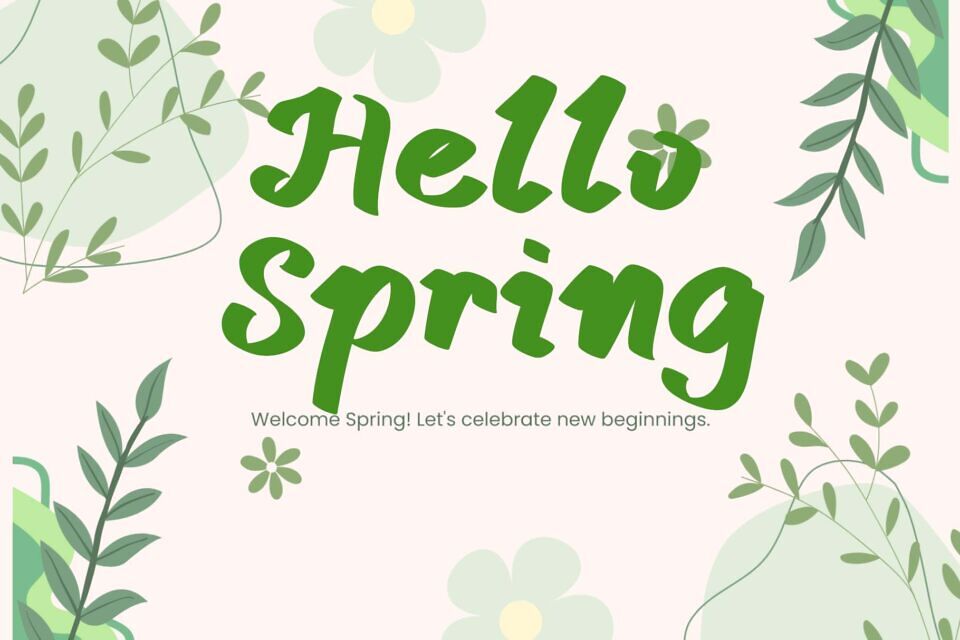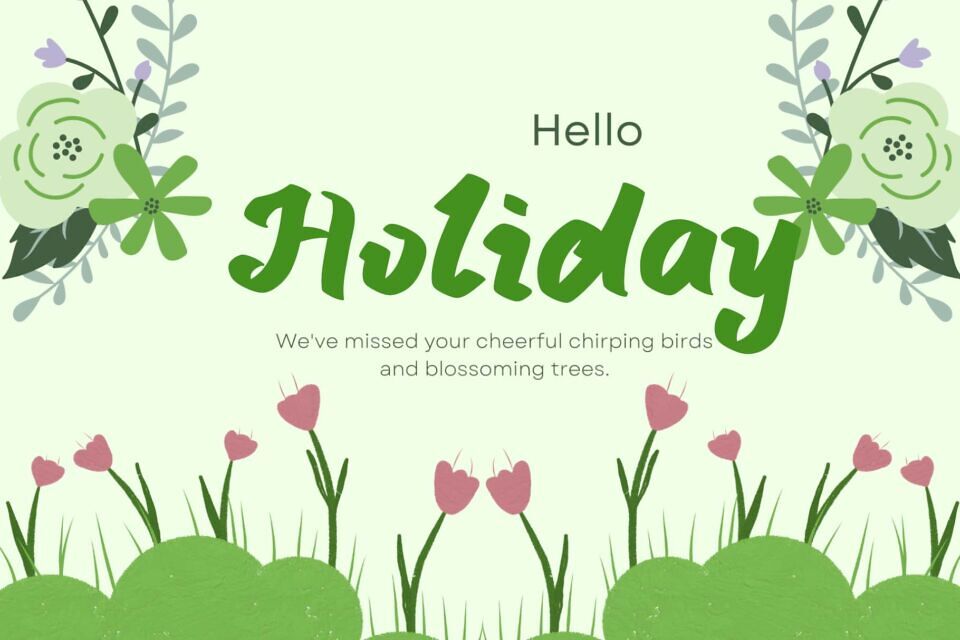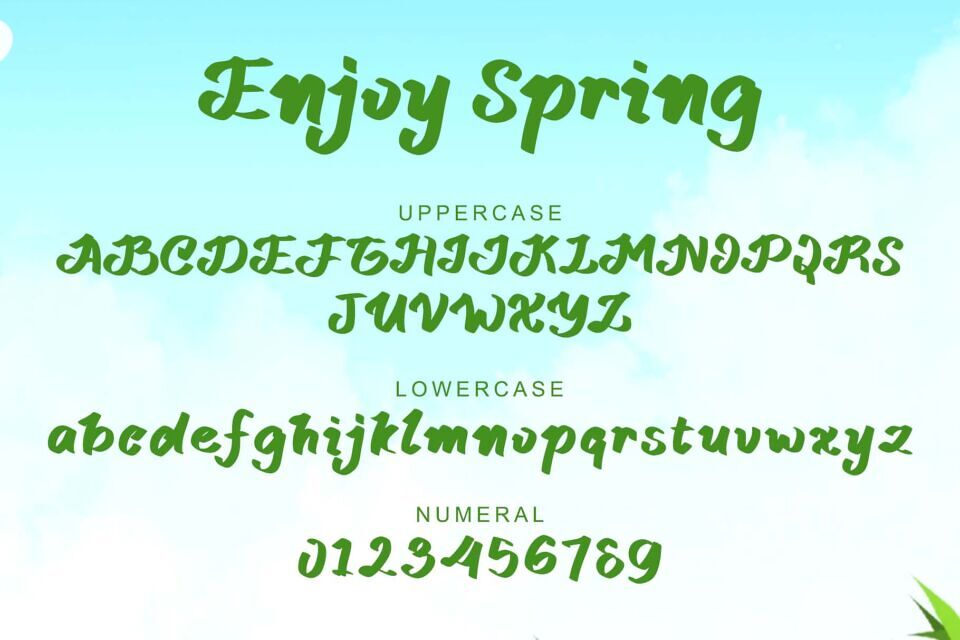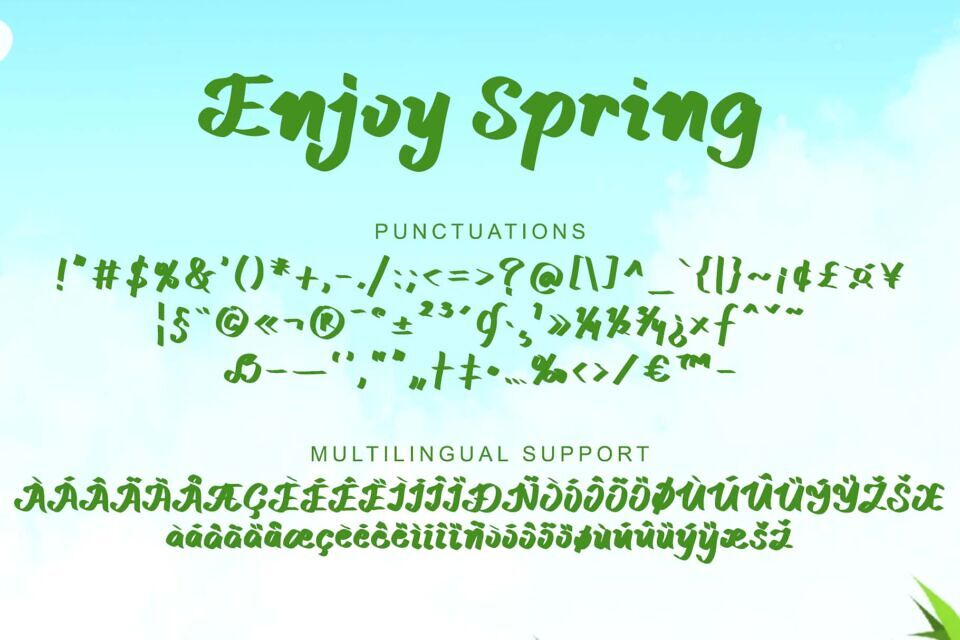
Enjoy Spring is a unique and beautiful display font. This font is equipped with uppercase, lowercase, numerals, punctuations and multilingual support. It is very suitable for use in spring, summer, holiday, easter, birthday, invitations, print, branding, sticker, wedding, photography and others.